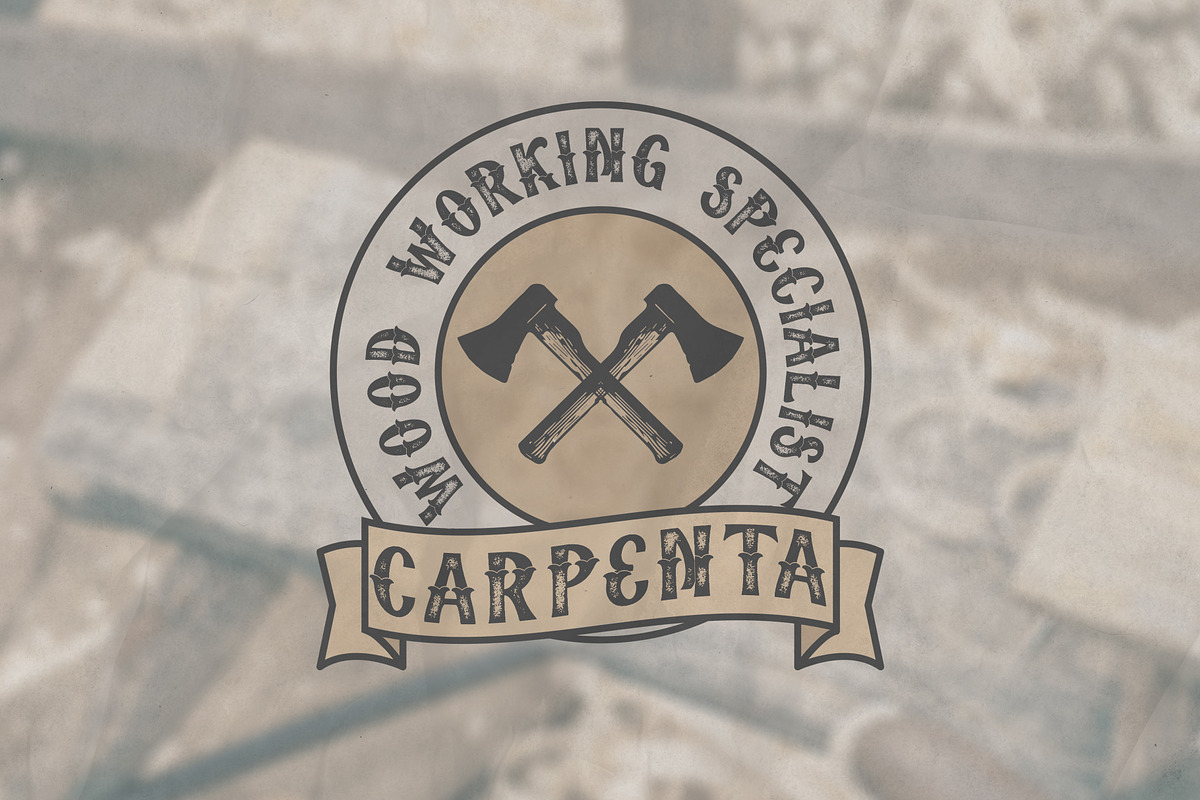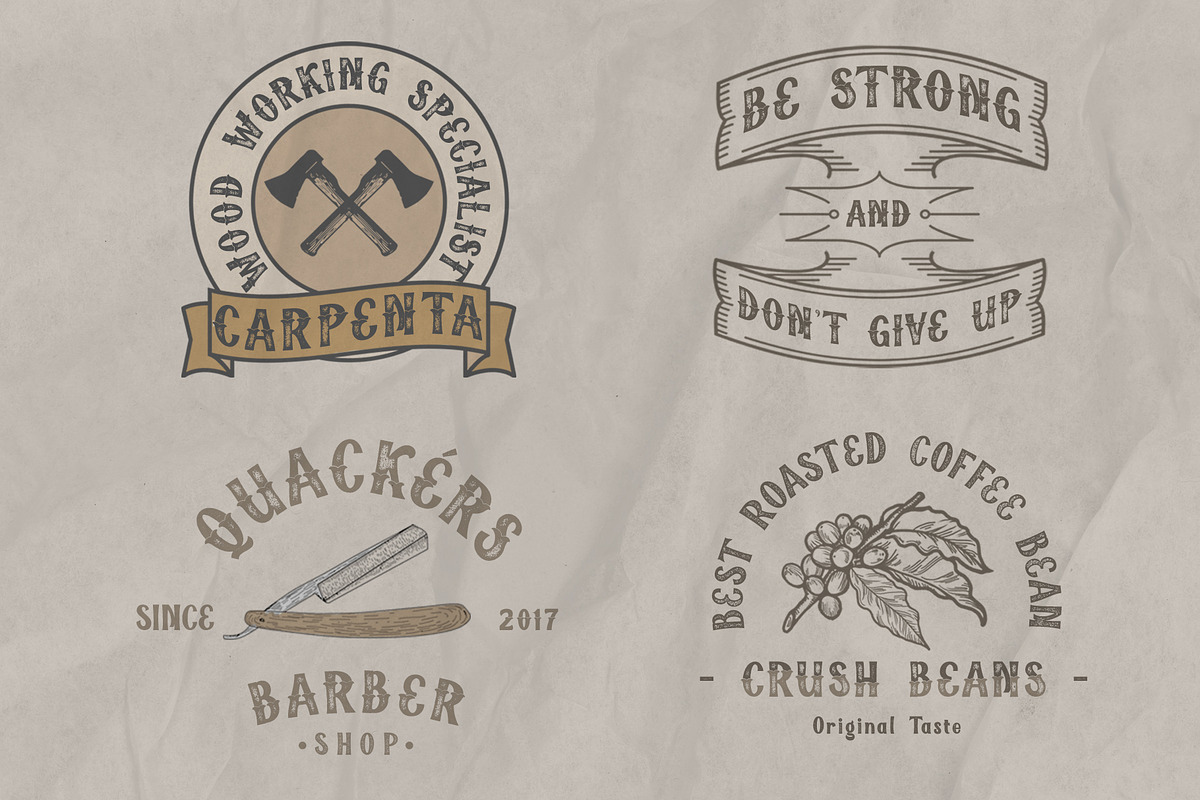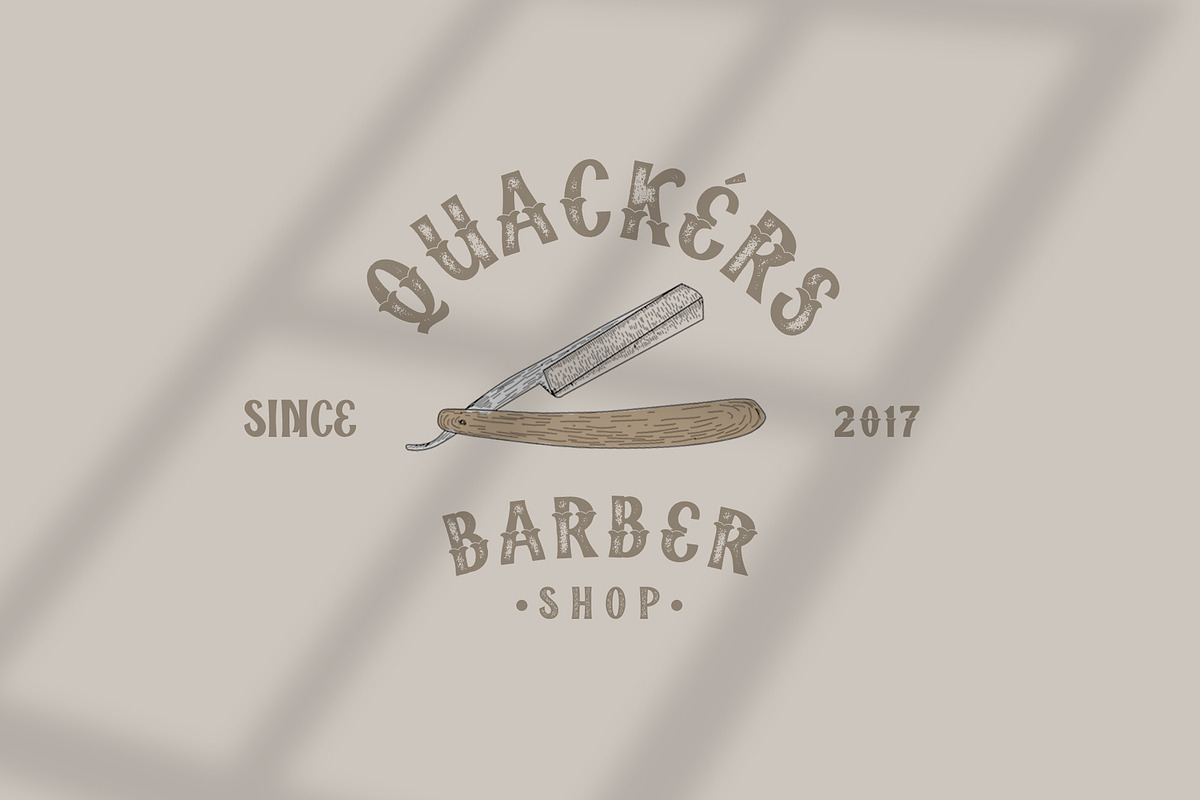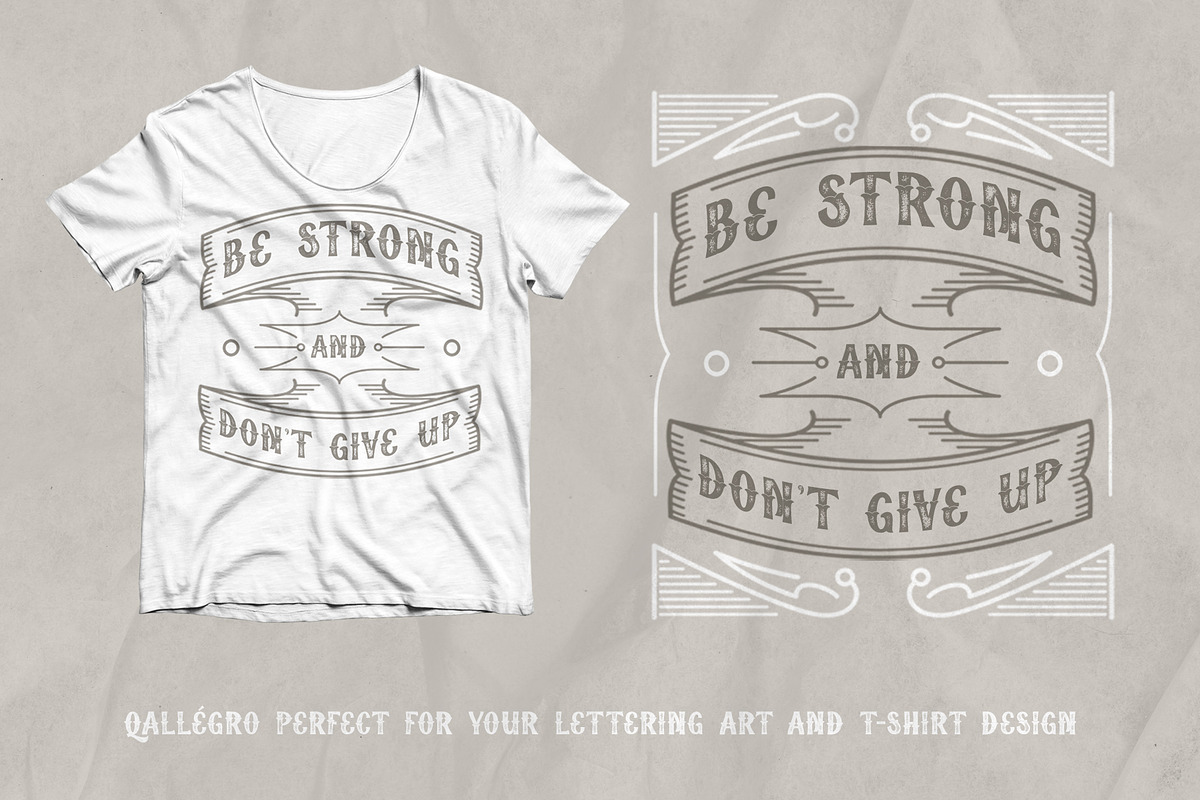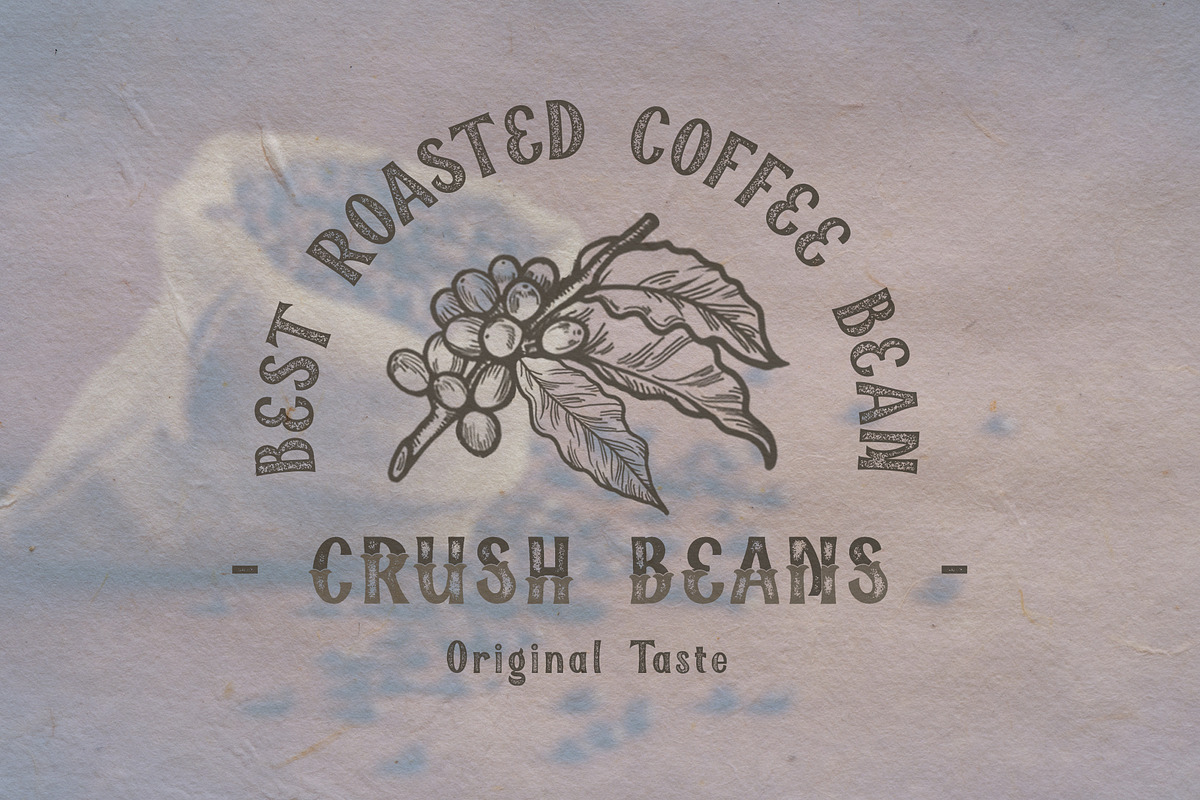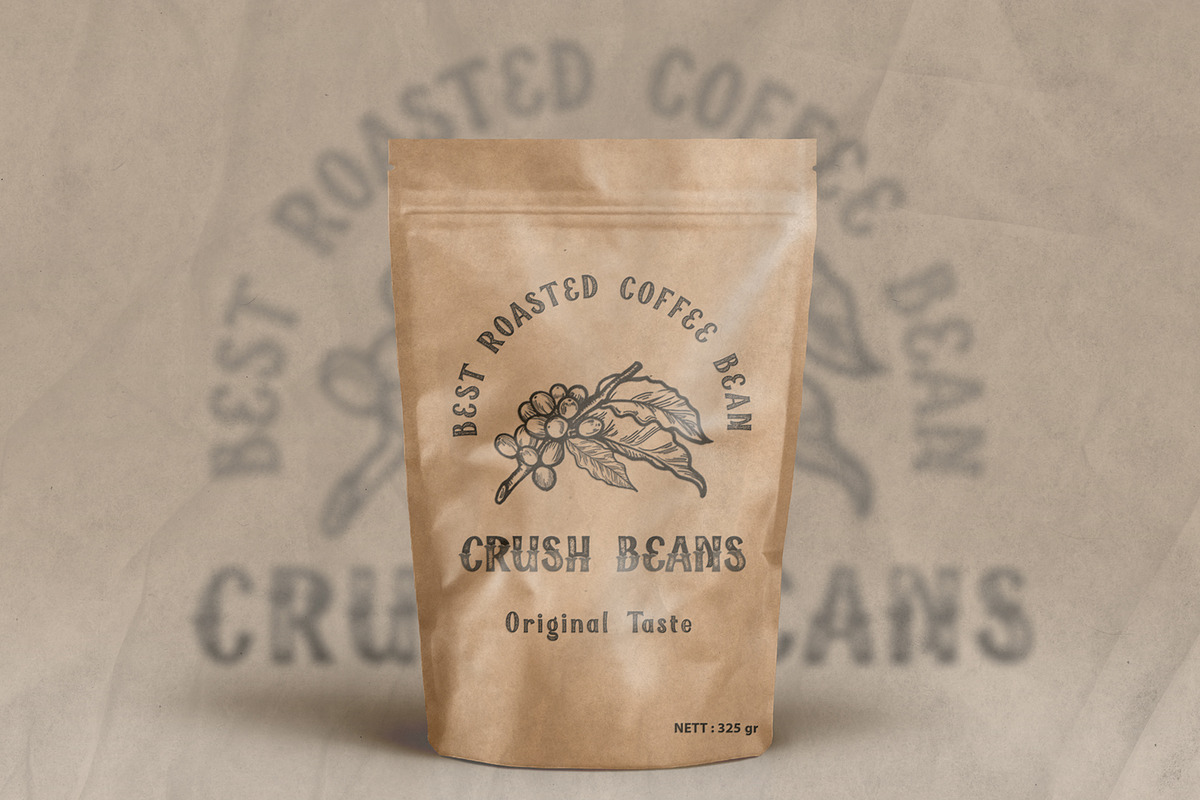
Qallégro | Original Handcrafted Font
Qallégro typeface is original handcrafted font. Qallégro typeface is great for Branding, Logo Design, Lettering,Logotype, Clothing, Poster, magazine and other design project.
Qallégro has 8 styles, one of which gives you the ability to change colors in one style, so that makes your design more amazing!